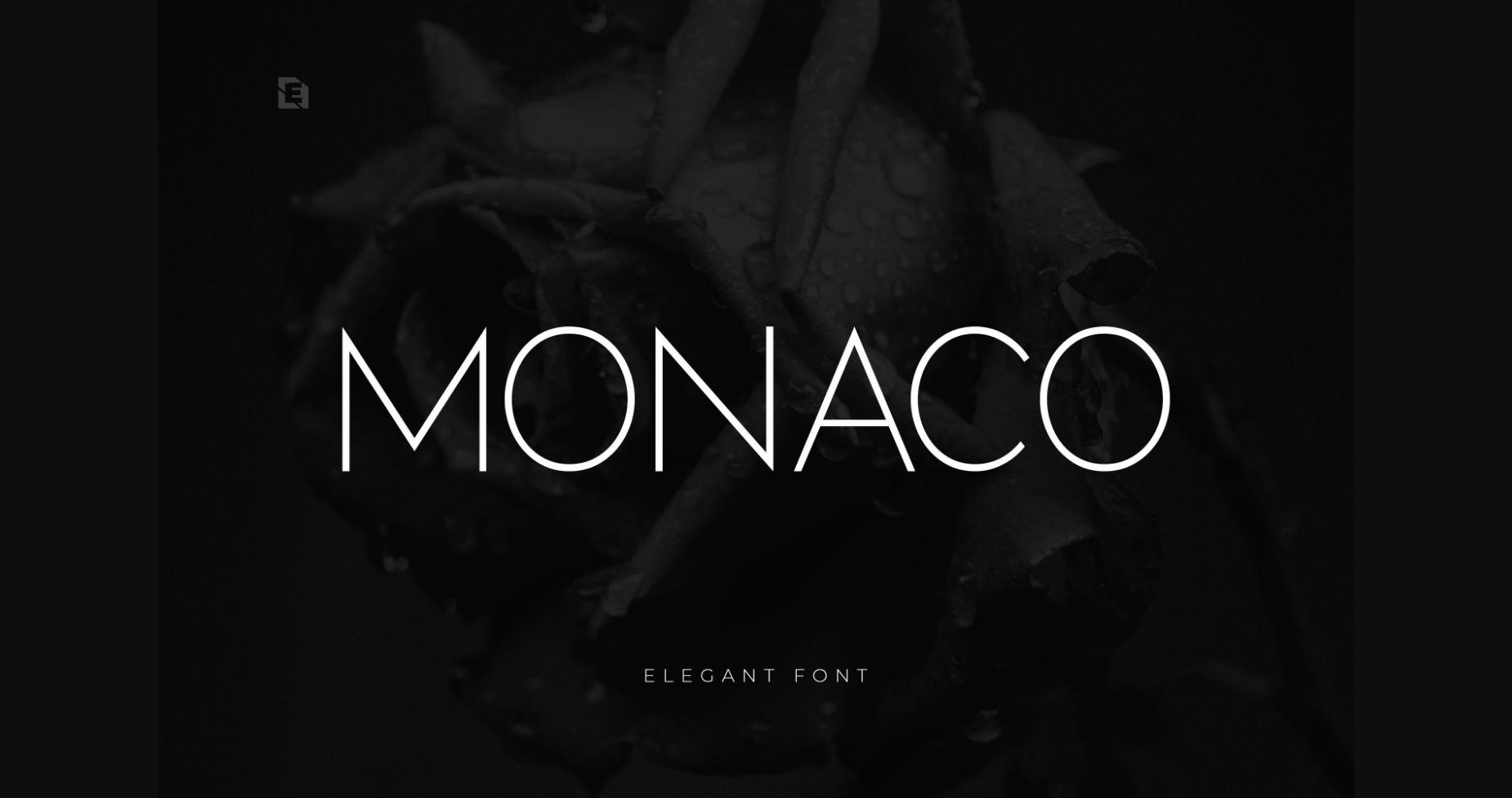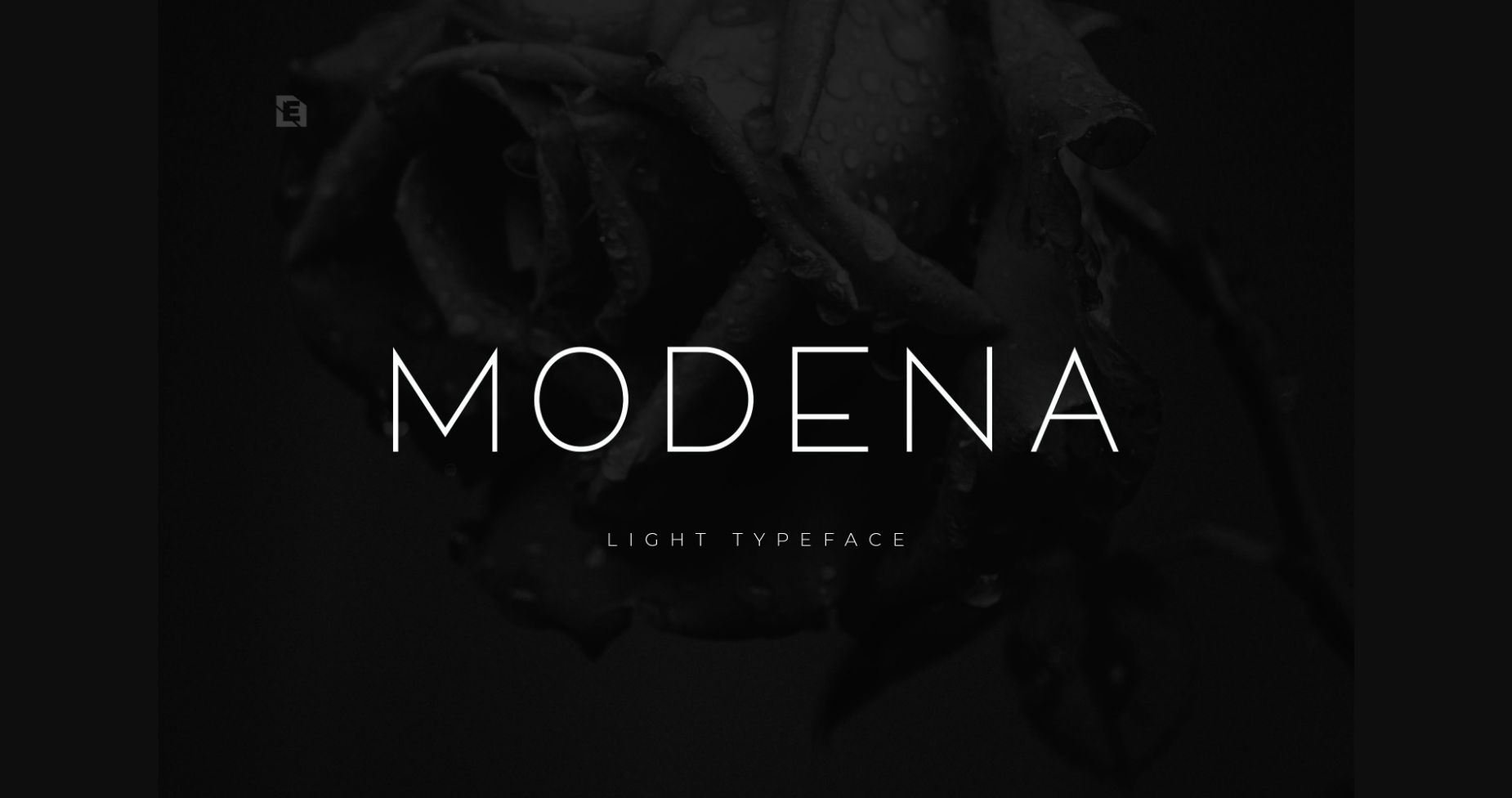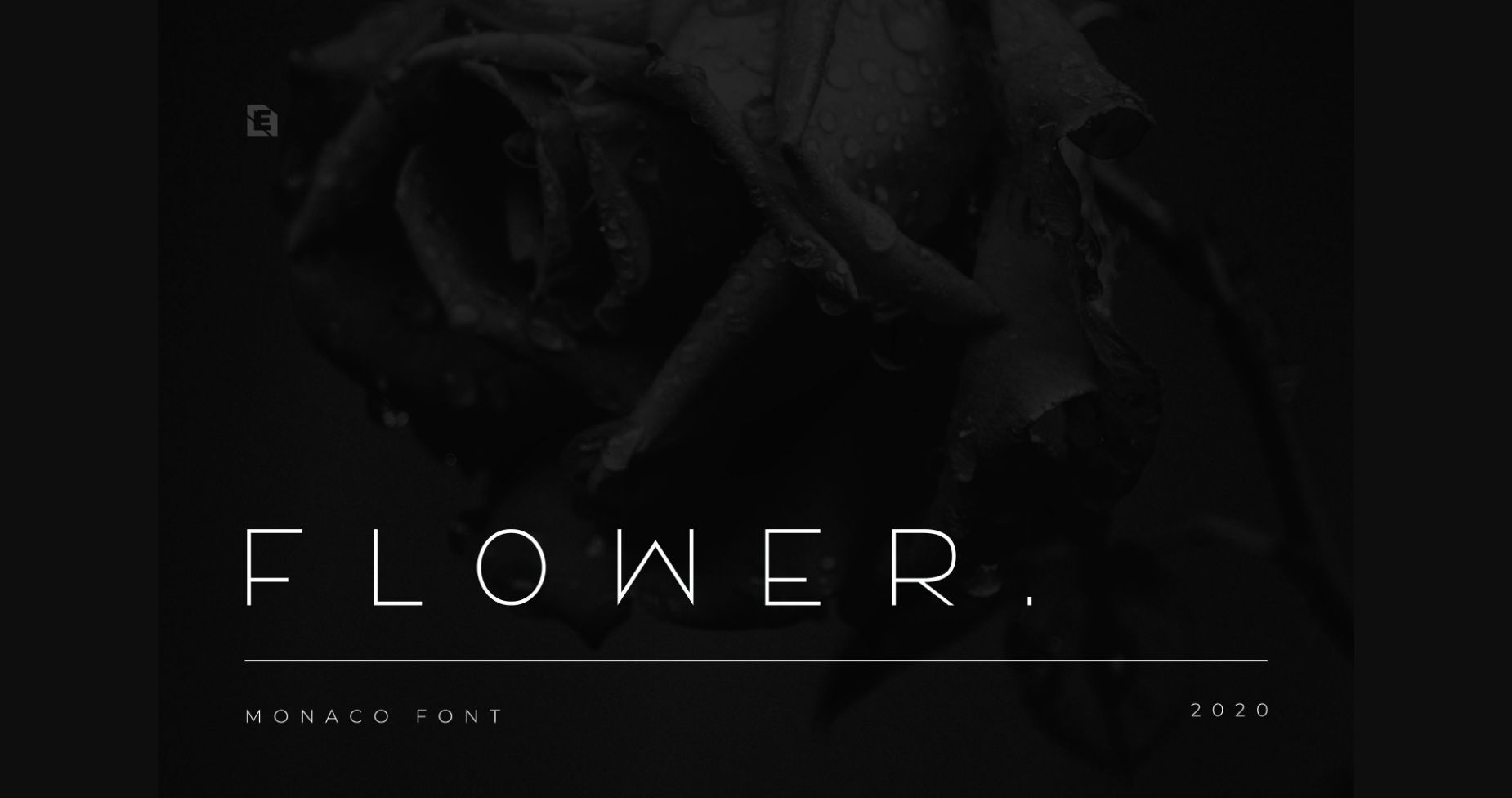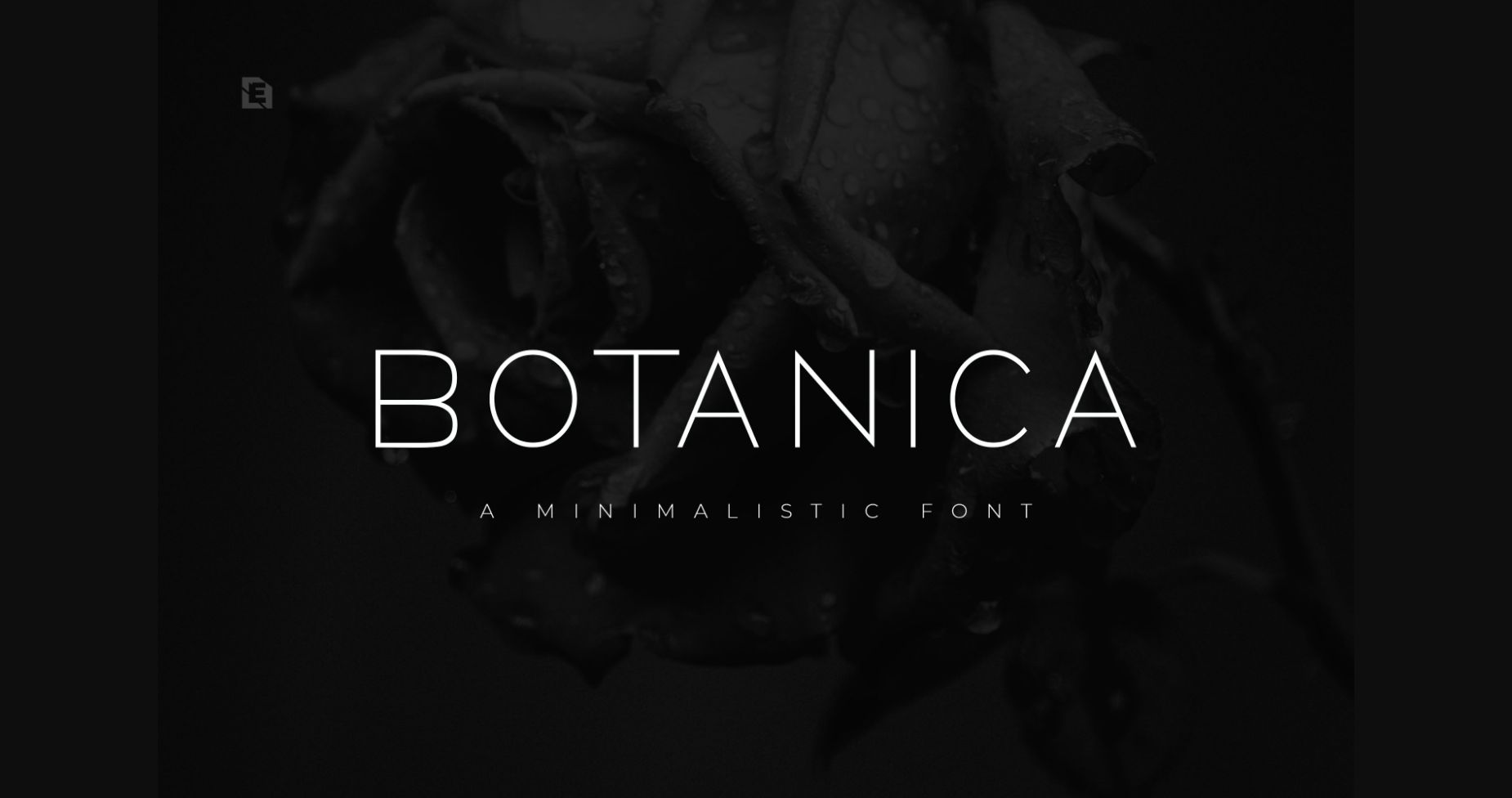
HomeSans Serif FontsMonaco Font Sans Serif Fonts Monaco Font FacebookXPinterestWhatsApp 1 of 6 ... Monaco Font Poster 2... Monaco Font Poster 3... Monaco Font Poster 4... Monaco Font Poster 5... Monaco Font Poster 6... About Monaco Font Monaco is a minimal and neat sans serif font. It can easily be matched to an incredibly large set of projects, so add it to your creative ideas and notice how it makes them stand out! DOWNLOAD NOW People also explored Pauline Didone Christmas Sparkling Font Rhosela Font Qareluna Font Betterday Font Benson Script Moonshine Font The Best Smile Font Amiland Font 300 0 TagsMonacoMonaco Font Previous articleVessagio FontNext articleArt Pro Font LEAVE A REPLY Cancel reply Comment: Please enter your comment! Name:* Please enter your name here Email:* You have entered an incorrect email address! Please enter your email address here Website: Save my name, email, and website in this browser for the next time I comment. Personal Use Free Amelline Personal Use Free Read more about this font Williana Personal Use Free Read more about this font Frozdotre Personal Use Free Read more about this font Micahel Personal Use Free Read more about this font BLOG How to Install and Use Fonts on Windows, macOS, and Web Projects How to Install and Use Fonts on Windows, macOS, and Web Projects Fonts are a crucial part of design and branding. Whether you’re designing a... Exploring Font Trends Using Fonts in Digital Marketing: Tips to Strengthen Your Brand Identity To increase your work productivity, choose the most readable fonts.